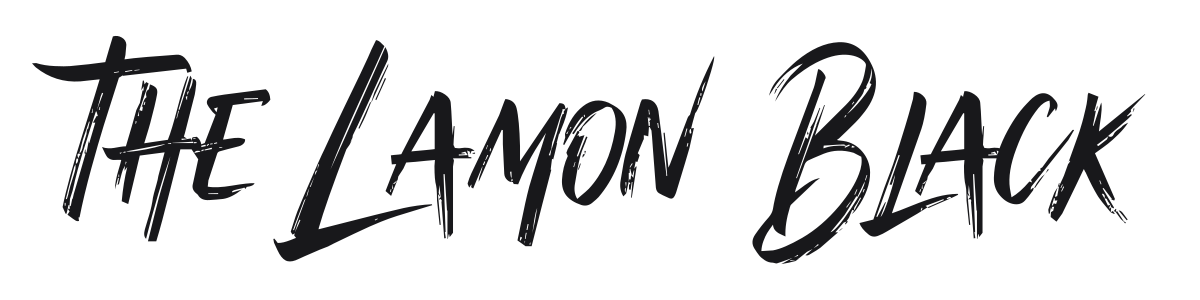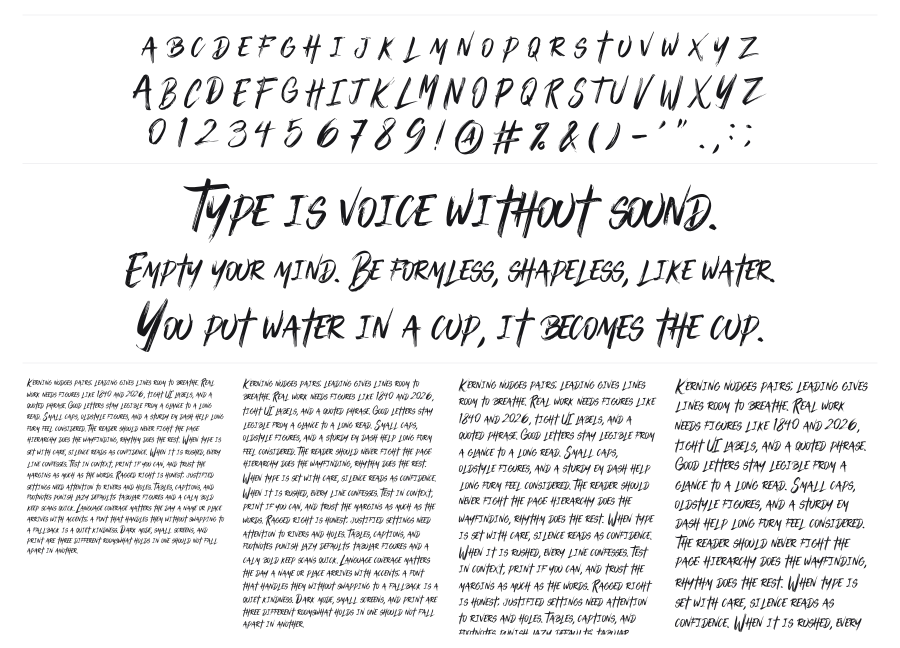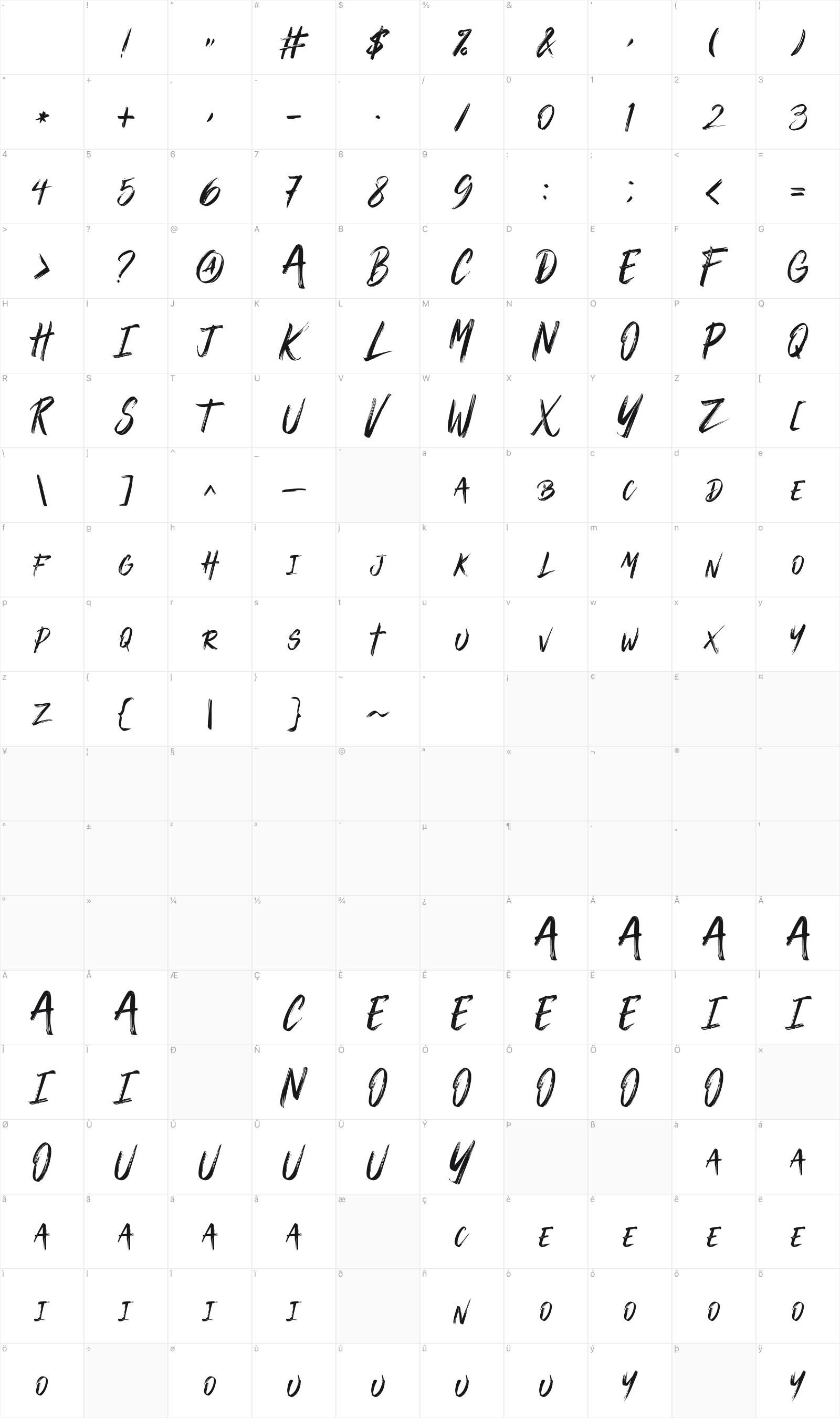
The Lamon Black
by Excellent Ritma Florendia
The Lamon Black is a heavy, rough brush script built on raw ink texture and spontaneous energy. Thick strokes split and drag at the ends, giving every word a hand-painted quality that sits somewhere between street art and hand-lettering. Strong at large sizes on posters, packaging, and apparel graphics.